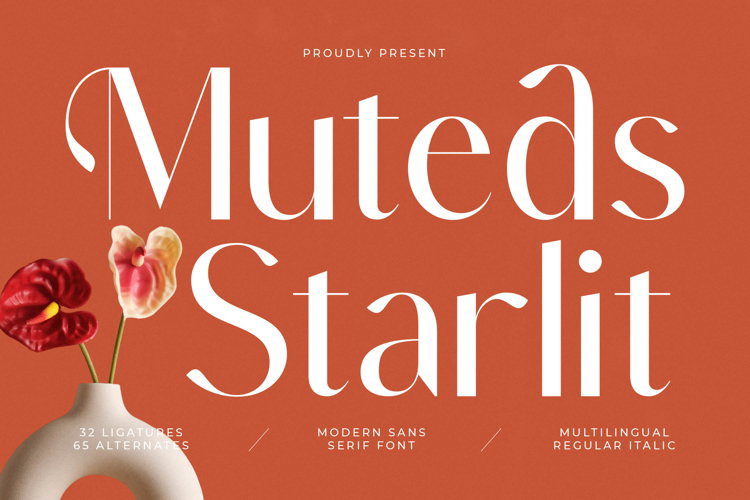
Muteds Starlit - Modern Sans Serif Font
Unveil a new standard of typographic elegance with Muteds Starlit - Modern Sans Serif Font. This exquisite typeface masterfully combines modern sans serif clarity with refined, almost calligraphic touches, creating a truly distinctive visual presence. Its striking high-contrast strokes and delicately balanced letterforms ensure your message is delivered with unparalleled sophistication and impact.
Craft compelling brands with creative flexibility. Muteds Starlit - Modern Sans Serif Font offers an impressive array of 32 ligatures and 65 alternates, empowering designers with boundless creative possibilities. Achieve unique customization and expressive typography, ensuring your designs stand out with a signature style that is both modern and timeless.